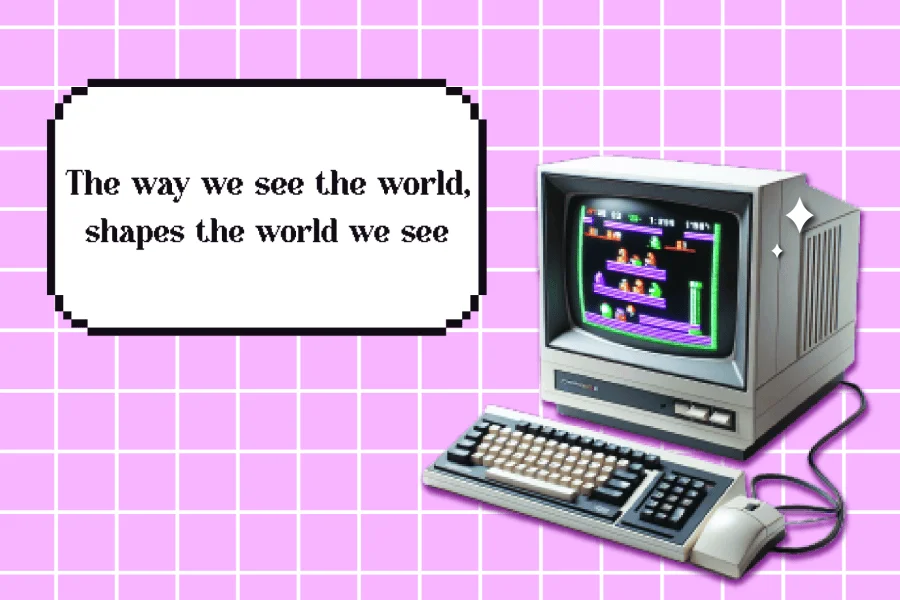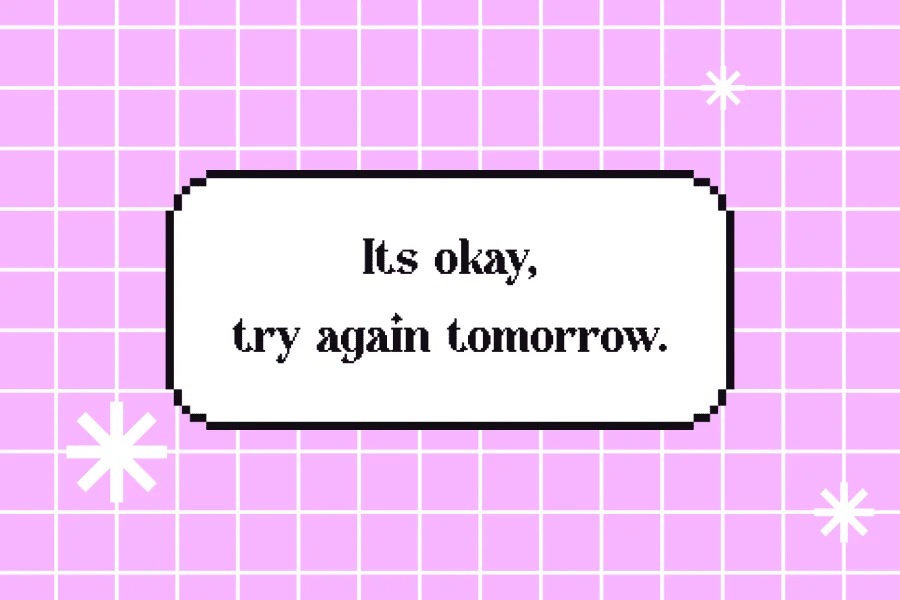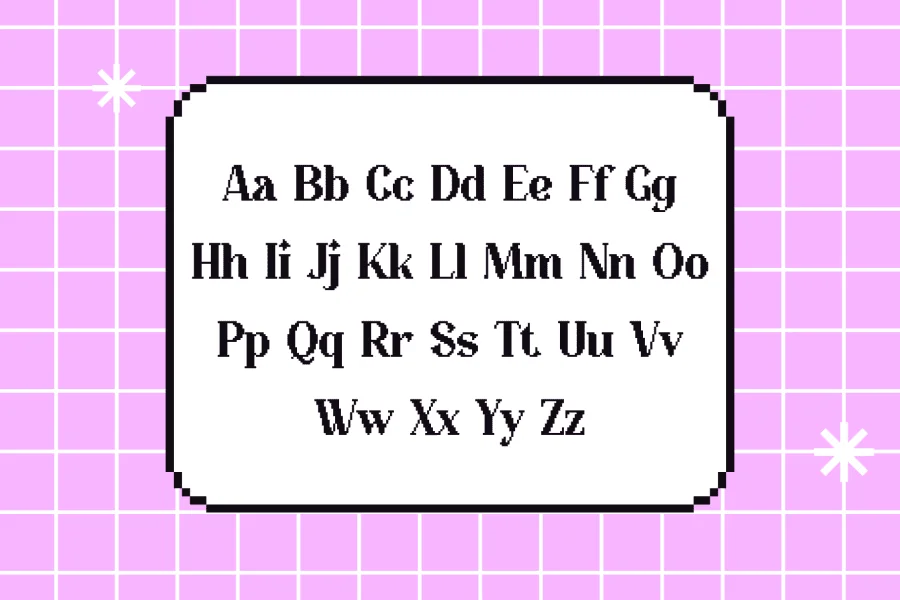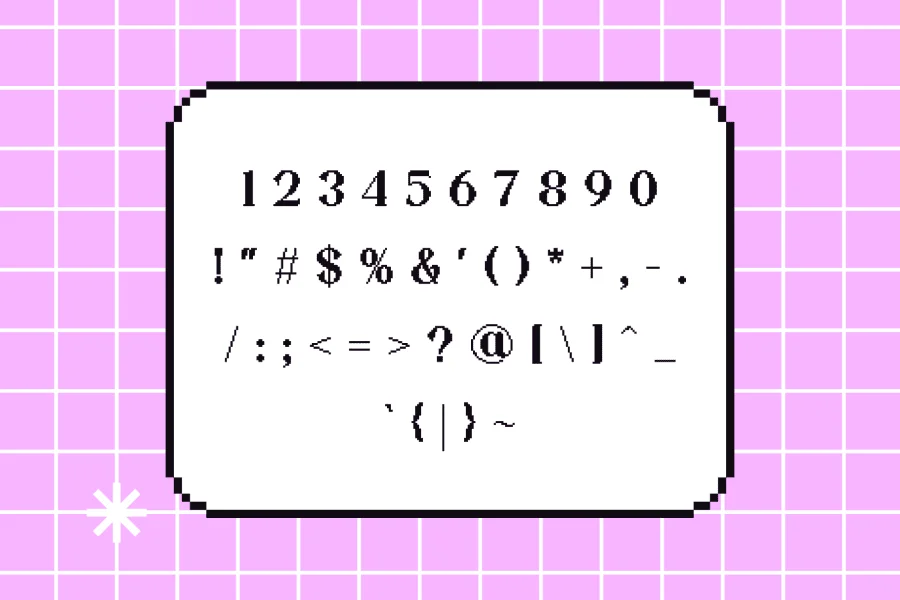
Bring a nostalgic twist to your designs with Star Crush, a pixel bitmap font inspired by the charming graphics of old-school video games and vintage computer systems.
Carefully crafted with a touch of the early 2000s aesthetic, this font includes uppercase and lowercase letters, numbers, and a selection of basic punctuation. Perfect choice for projects that crave a Y2K vibe.